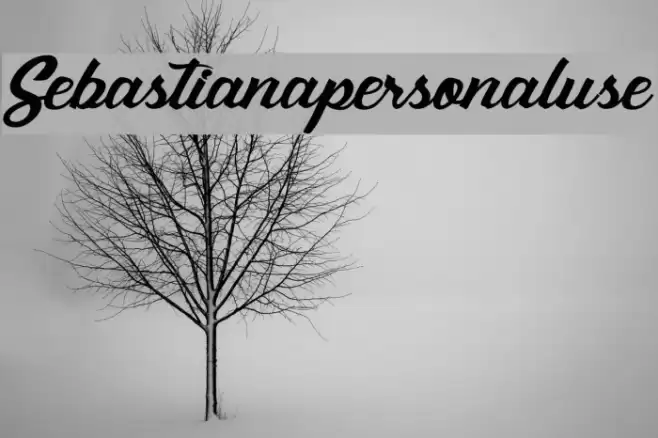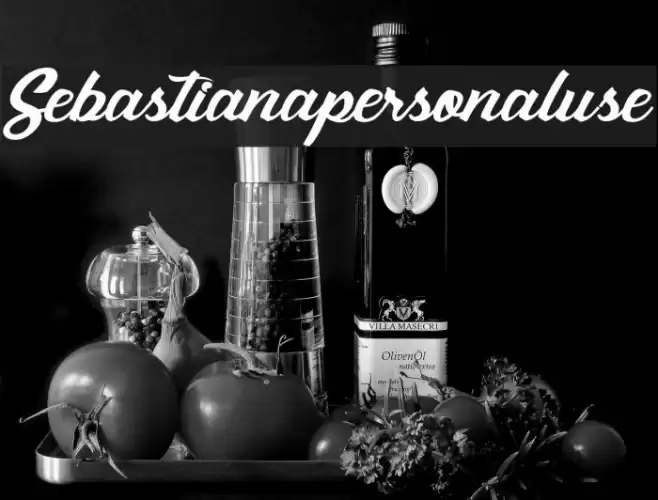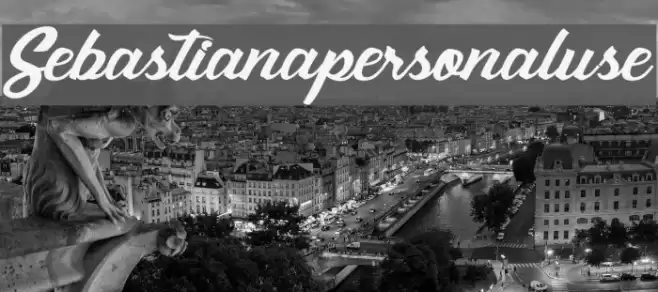
Sebastianapersonaluse Font
Sebastianapersonaluse Description
This font features an elegant and flowing script style, characterized by its smooth, cursive letterforms that convey a sense of sophistication and grace. The uppercase letters are bold and sweeping, with intricate loops and flourishes that add a decorative touch. The lowercase letters maintain a consistent style, with a slightly more restrained design that ensures readability. The numerals and special characters are crafted to match the overall aesthetic, providing a cohesive look across all elements. This font is ideal for projects that require a touch of elegance and formality, such as invitations, branding, and decorative text.
An elegant, flowing script font with bold, cursive letterforms from Uncategorized fonts.
- Proposed Projects: Ideal for wedding invitations, luxury branding, decorative headings, and formal event materials.
- Overall Style: Elegant, Decorative
- Use Case: Headlines, Logos, Invitations